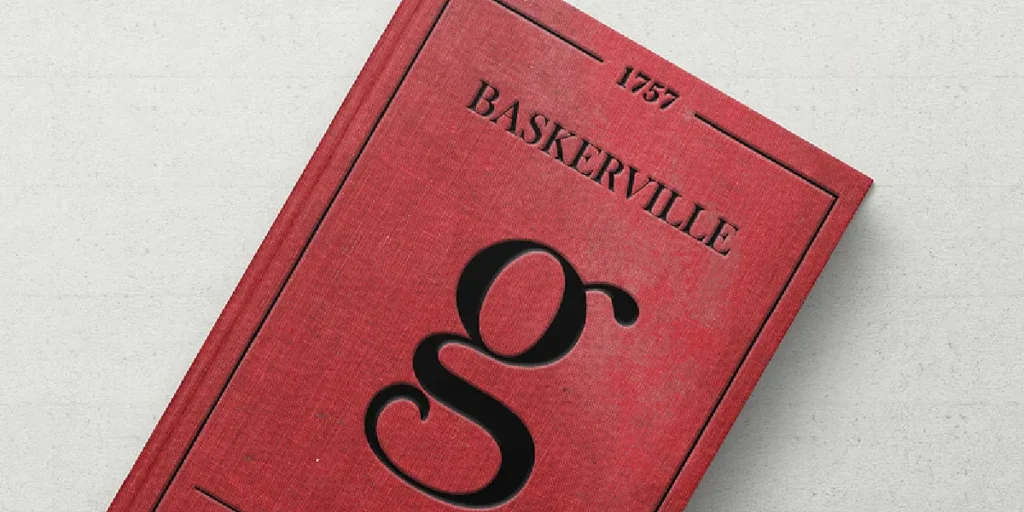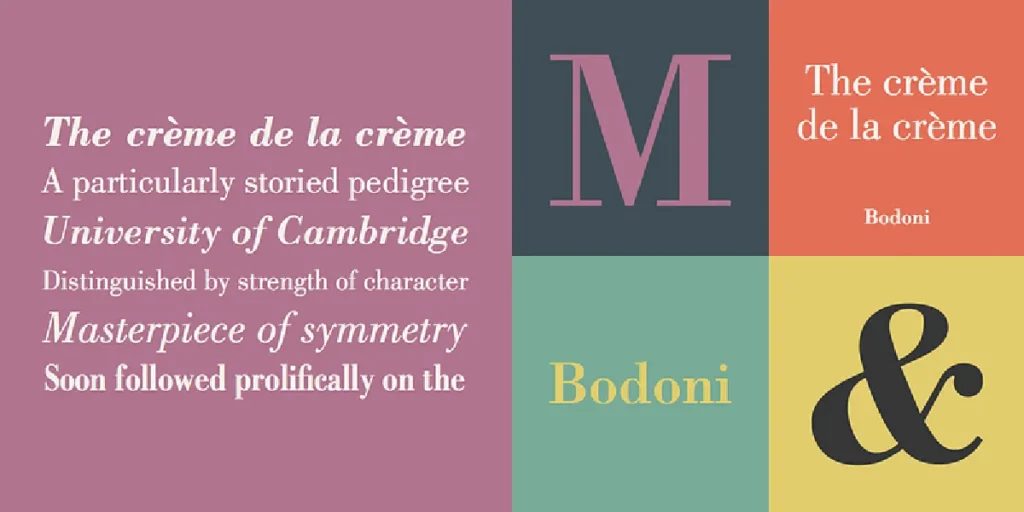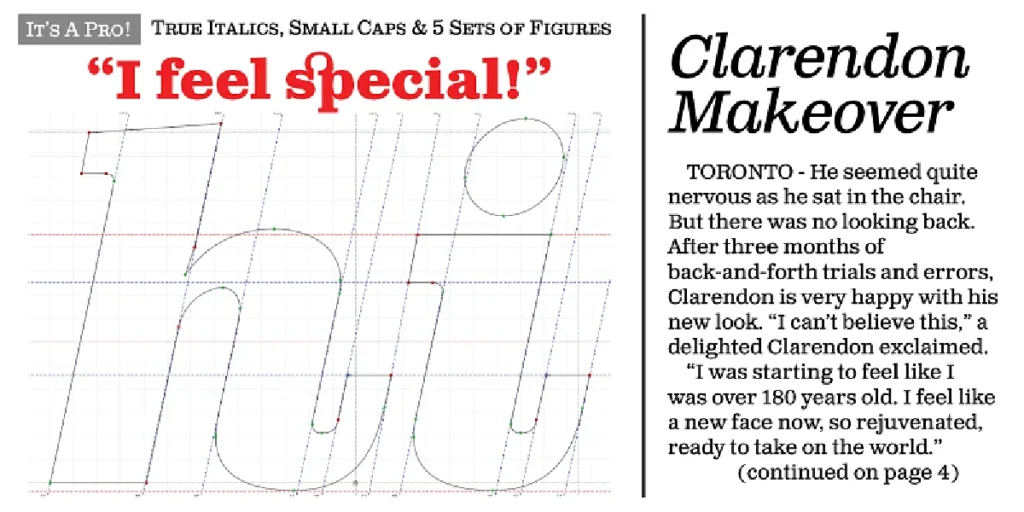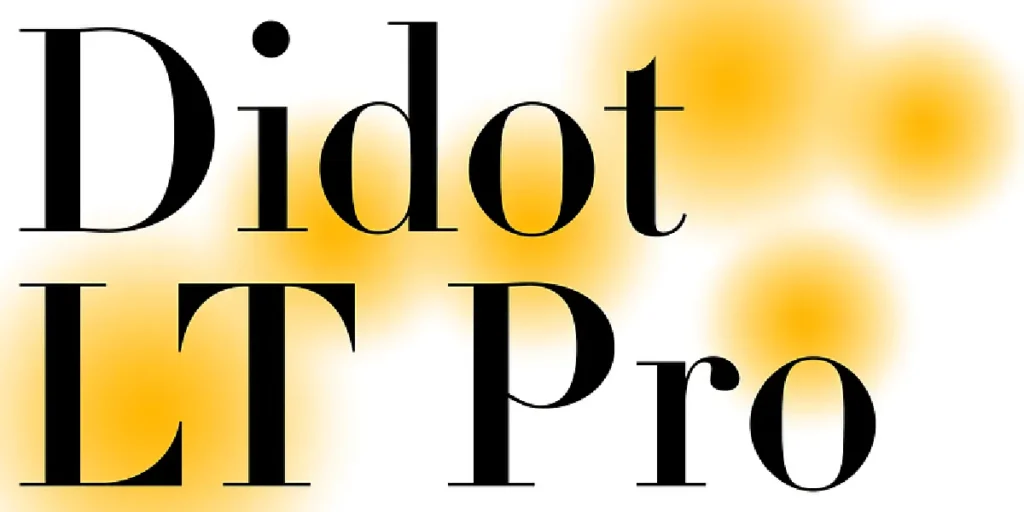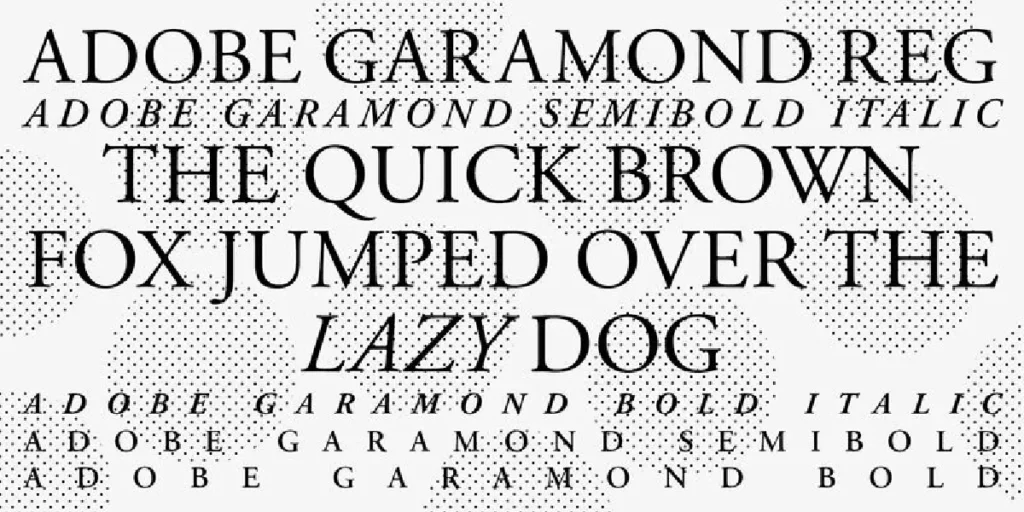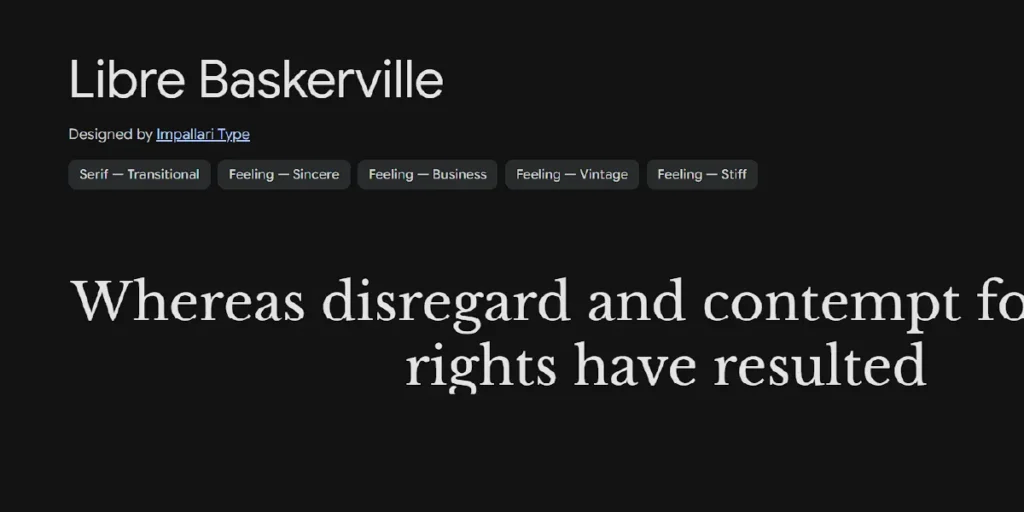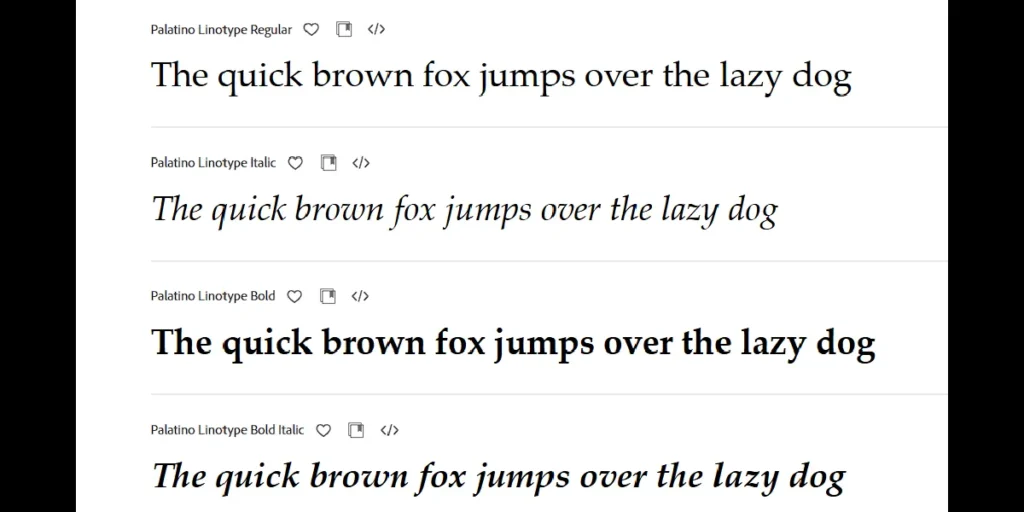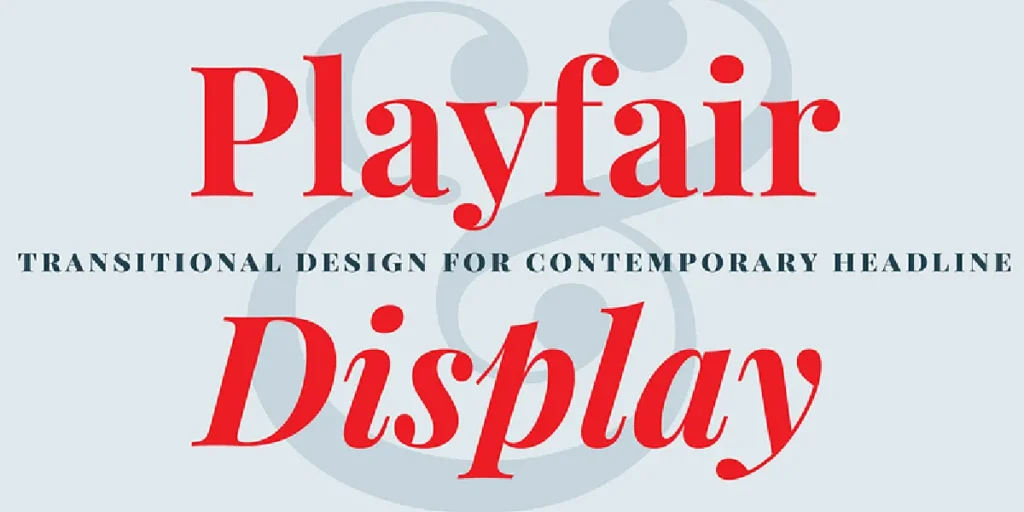
5 Most Used Serif Font Styles Today With Popular Font Examples (Plus Lettertype Studio Picks)
5 Most Used Serif Font Styles Today (Plus Lettertype Studio Picks)
Introduction
Serif fonts have long been associated with credibility, readability, and timeless design. From books and newspapers to luxury branding and modern editorial layouts, serif typefaces remain one of the most widely used font categories in the design industry.
In this article, we’ll explore five of the most commonly used serif font styles today, followed by a curated list of editorial serif fonts from Lettertype Studio—representing the studio’s more mature and professional design phase.
Why Serif Fonts Remain Widely Used
Despite the rise of sans-serif and experimental type, serif fonts continue to dominate many design fields due to:
• Strong readability for long-form content
• Professional and trustworthy appearance
• Timeless visual structure
• High adaptability across print and digital media
1. Old Style Serif Fonts
Old Style serif fonts originate from Renaissance typography and feature low contrast, diagonal stress, and softly bracketed serifs.
Popular examples:
1. Garamond
2. Caslon
3. Palatino
Where they are commonly used:
Books, novels, academic publications, and long-form editorial content.
Why designers use them:
Old Style serifs feel warm, human, and extremely comfortable for long reading sessions, making them a timeless choice for body text.
2. Transitional Serif Fonts
Transitional serif fonts bridge the gap between Old Style and Modern serif designs. They feature higher contrast and more refined proportions.
Popular examples:
1. Baskerville
2. Times New Roman
Where they are commonly used:
Newspapers, magazines, journals, and professional documents.
Why designers use them:
They offer excellent readability while appearing more structured and formal than Old Style serifs.
3. Modern (Didone) Serif Fonts
Modern serif fonts—often called Didone—are defined by extreme contrast, vertical stress, and sharp, thin serifs.
Popular examples:
1. Bodoni
2. Didot
Where they are commonly used:
Luxury branding, fashion editorials, high-end magazines, and premium packaging.
Why designers use them:
They instantly convey elegance, sophistication, and exclusivity.
4. Slab Serif Fonts
Slab serif fonts feature thick, block-like serifs with minimal stroke contrast, giving them a bold and stable appearance.
Popular examples:
1. Rockwell
2. Clarendon
Where they are commonly used:
Posters, headlines, logos, advertising, and web interfaces.
Why designers use them:
Their strong structure makes them highly legible and visually impactful, even at large sizes.
5. Contemporary Editorial Serif Fonts
Contemporary serif fonts reinterpret classical serif principles with modern proportions, cleaner details, and expanded weight ranges.
Popular examples:
1. Playfair Display
2. Libre Baskerville
Where they are commonly used:
Modern editorial layouts, websites, brand identities, and digital publishing.
Best for: Fashion branding, modern editorials, creative projects
Conclusion
Serif fonts continue to be widely used because they adapt effortlessly to changing design trends while maintaining clarity and authority. Understanding the most common serif styles helps designers choose typography more intentionally.
By focusing on Lettertype Studio serif fonts, designers gain access to a curated selection of typefaces built with stronger concepts, refined structure, and real-world editorial performance in mind.